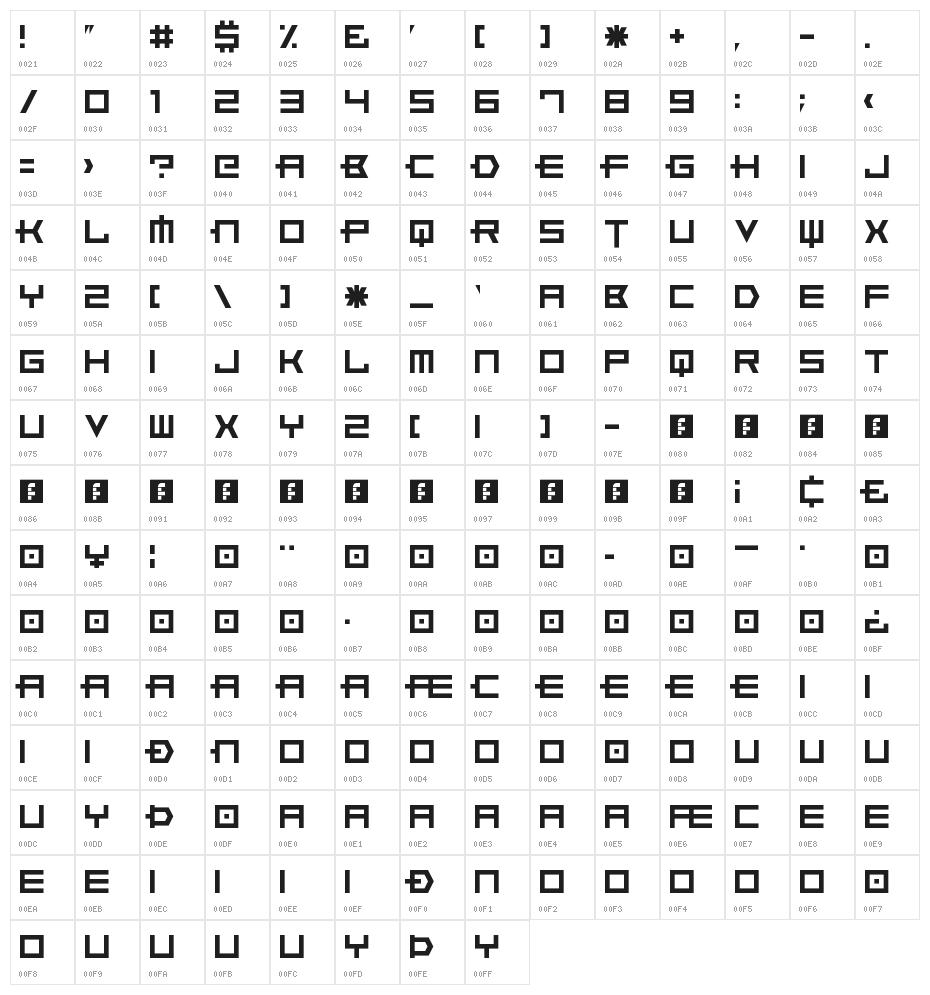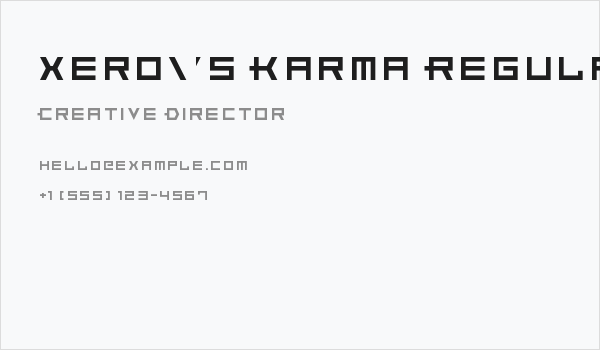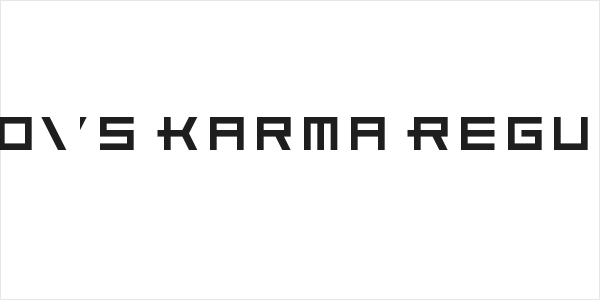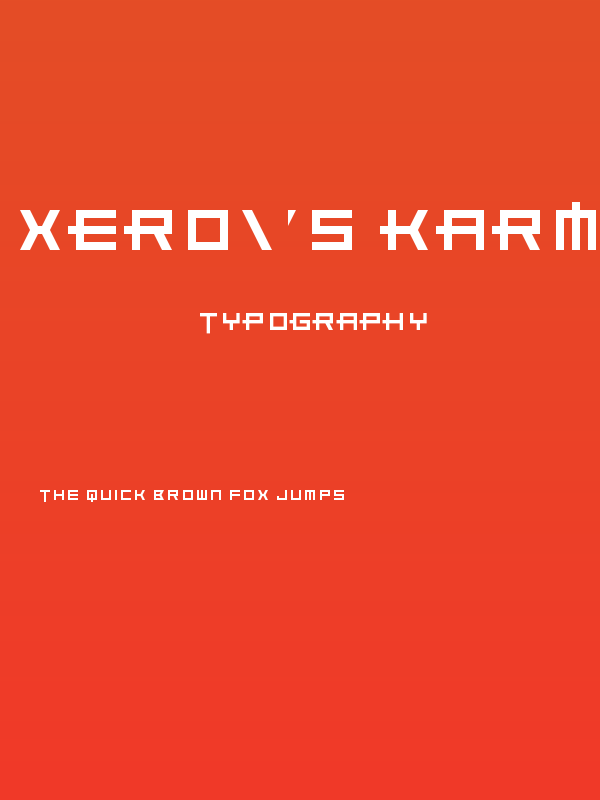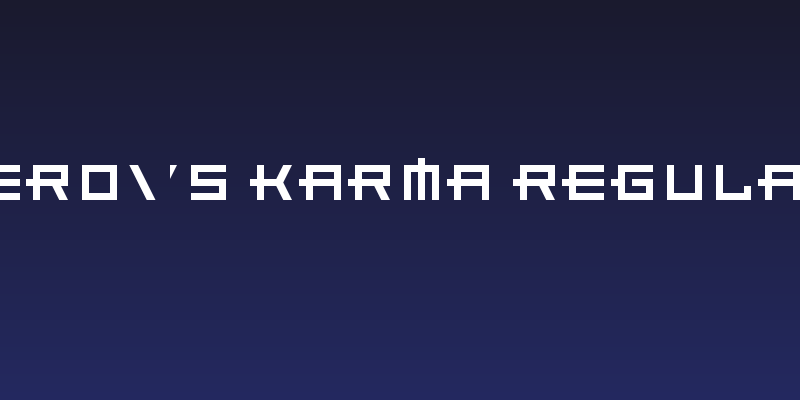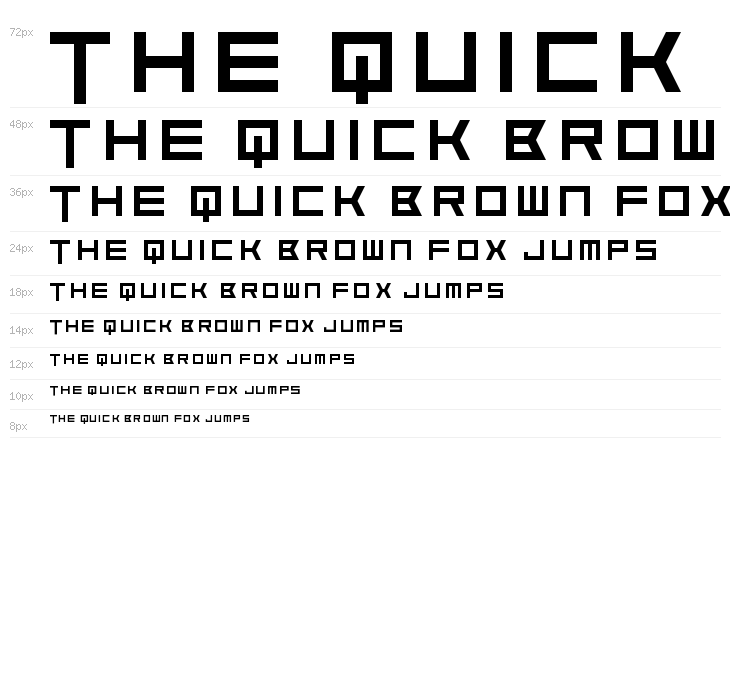
Xero's Karma Regular Font
This font features a bold, geometric design with a futuristic and digital aesthetic. Each character is constructed with sharp angles and straight lines, giving it a distinctly modern and tech-inspired look. The uppercase and lowercase letters maintain a consistent style, with a uniform height and width that enhances readability. The numbers and special characters are designed to match the angular theme, ensuring a cohesive appearance across all glyphs. The font's strong presence makes it ideal for projects that require a bold statement or a high-tech feel.
Proposed ProjectsIdeal for technology branding, video game titles, digital interfaces, and futuristic-themed designs.